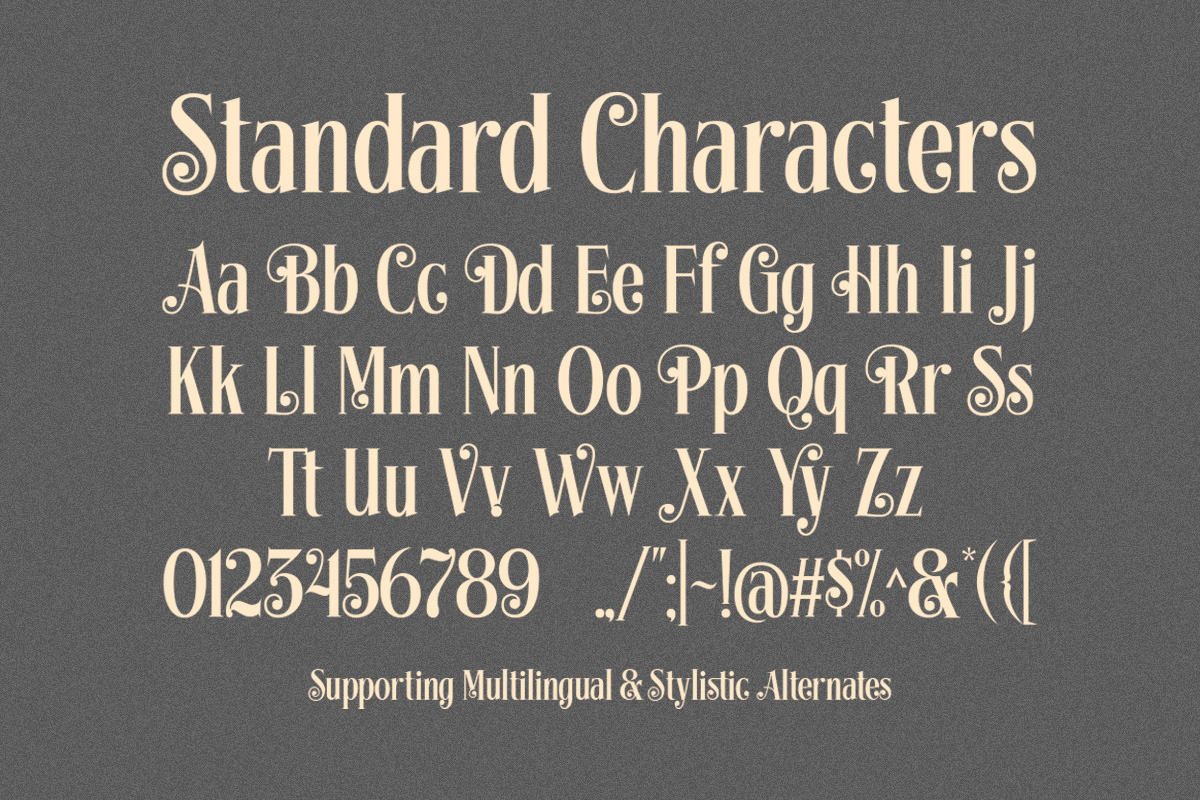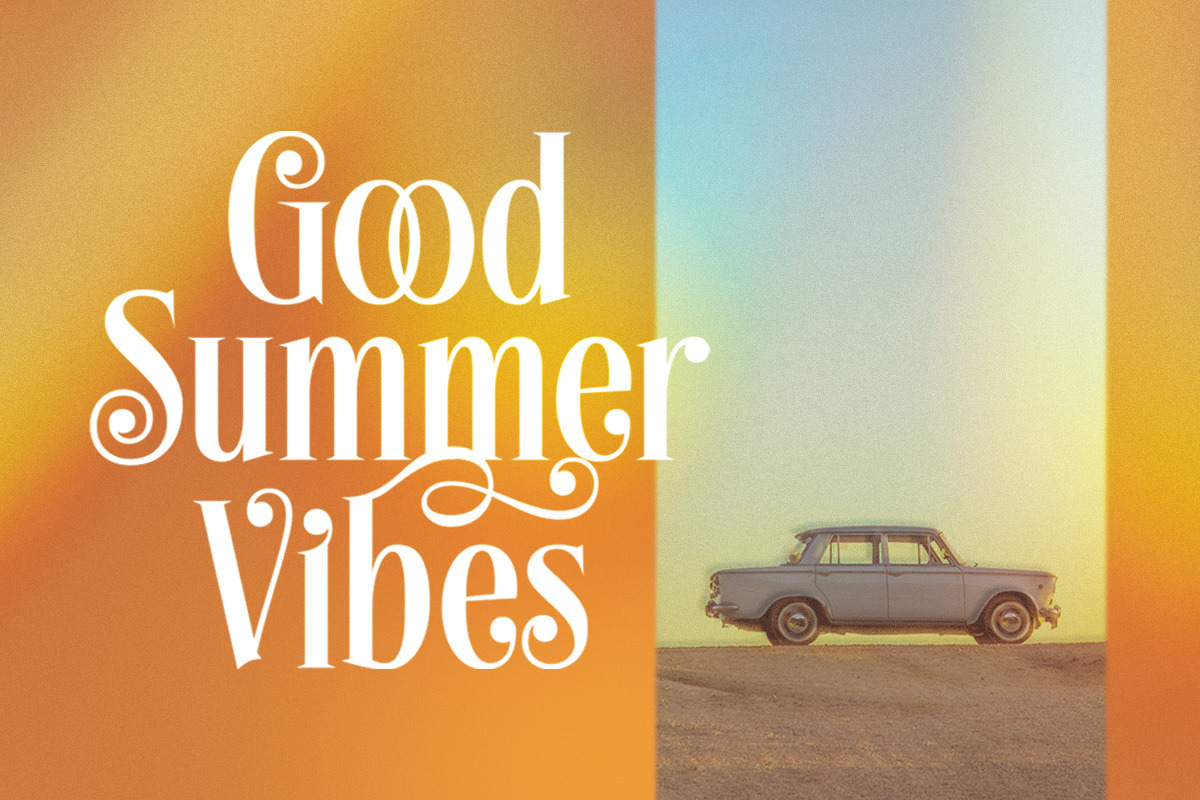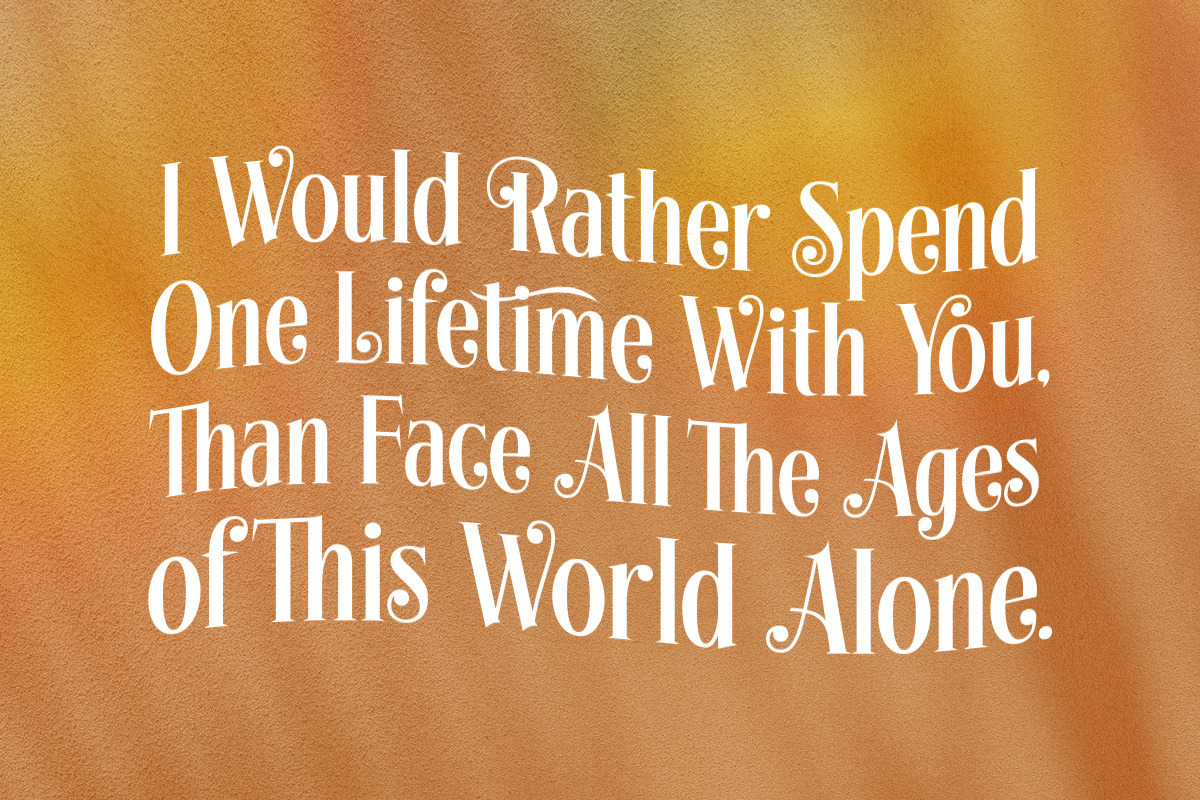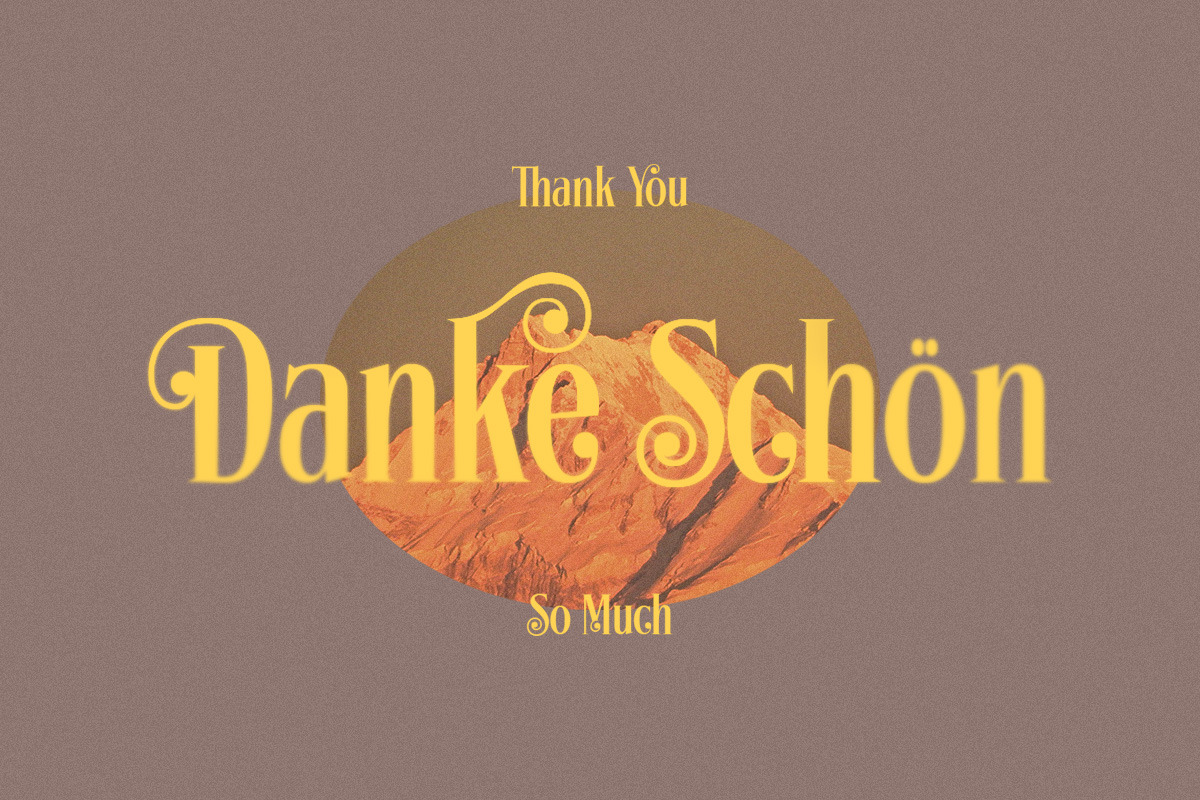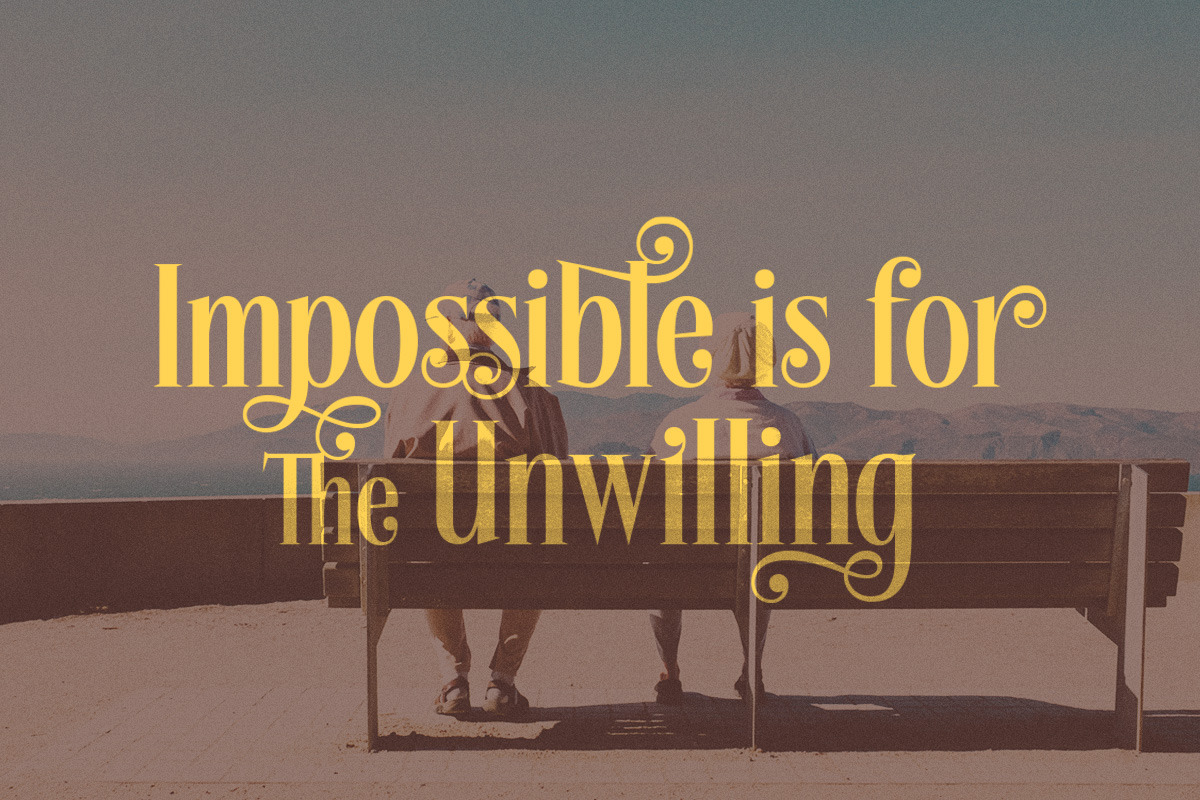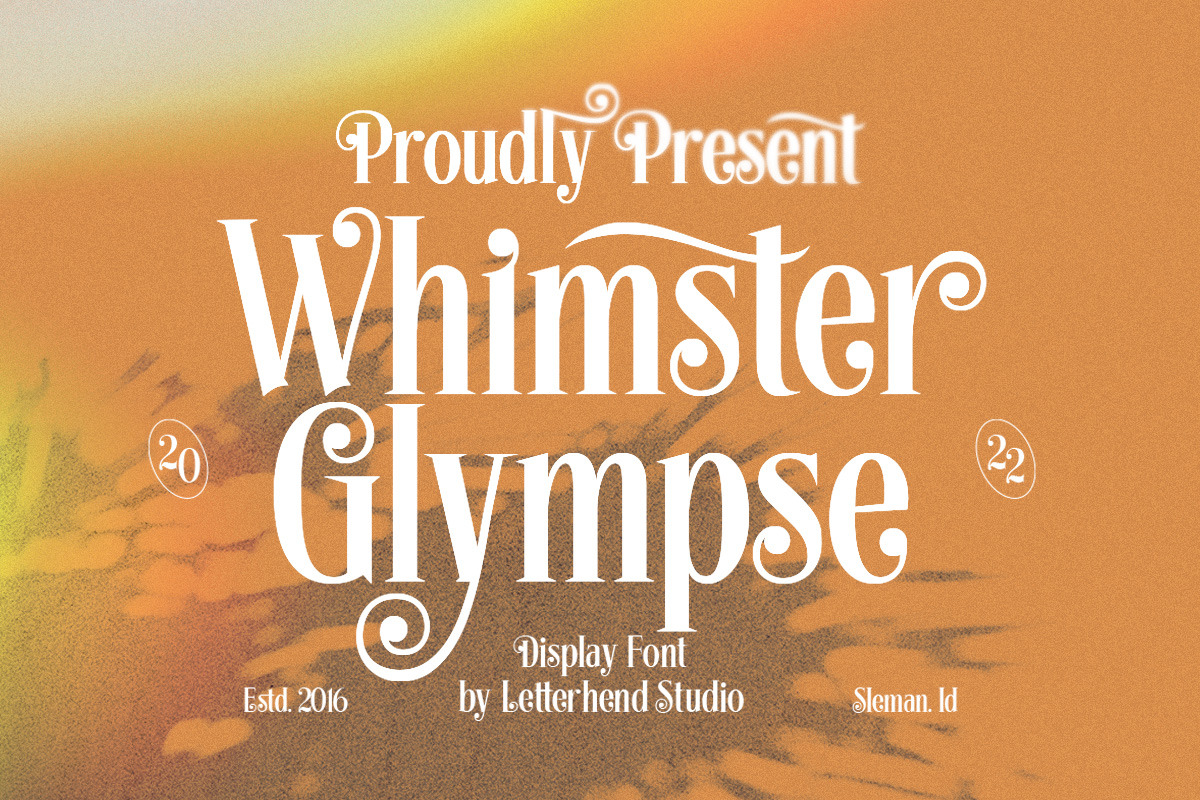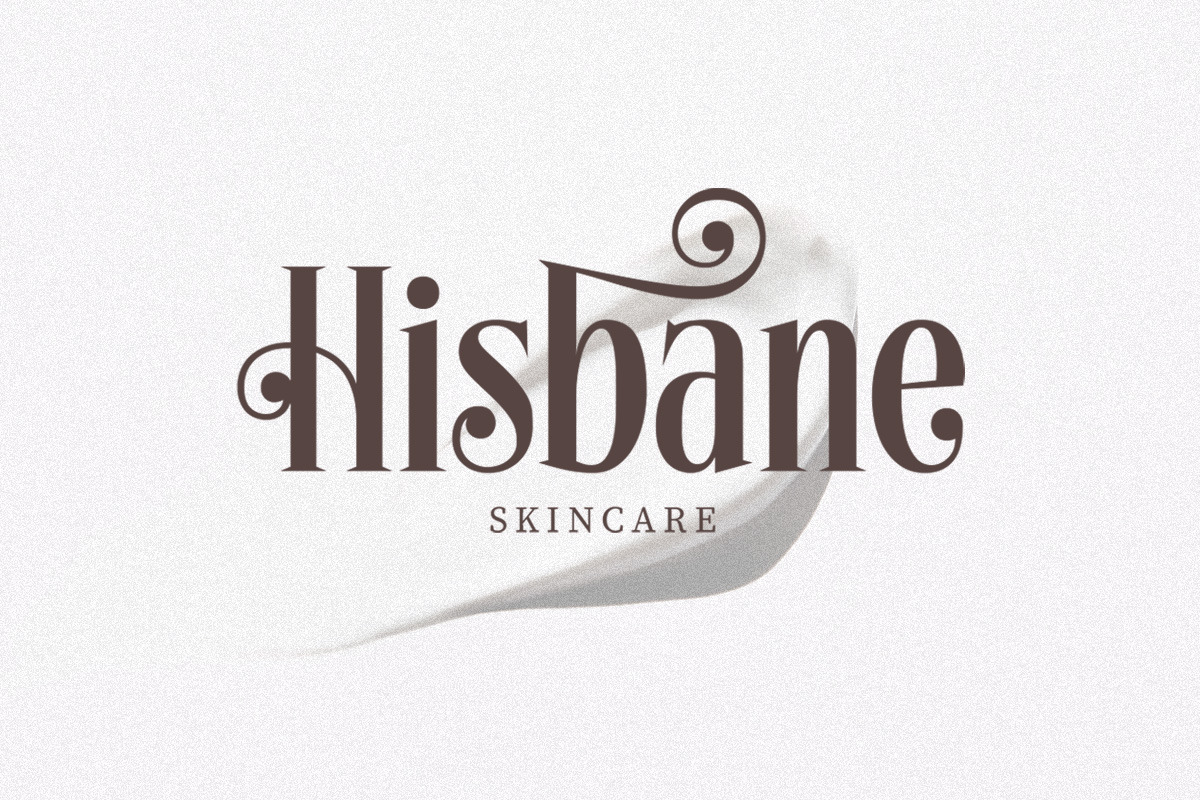
Whimster Glimpse - Display Font
Whimster Glimpse is a stylish display font. This font has unique letterform, make it looks great to be used for vintage & elegant design theme. This font perfectly made to be applied especially in logo, and the other various formal forms such as invitations, labels, logos, magazines, books, greeting / wedding cards, packaging, fashion, make up, stationery, novels, labels or any type of advertising purpose.
- alternates & ligatures